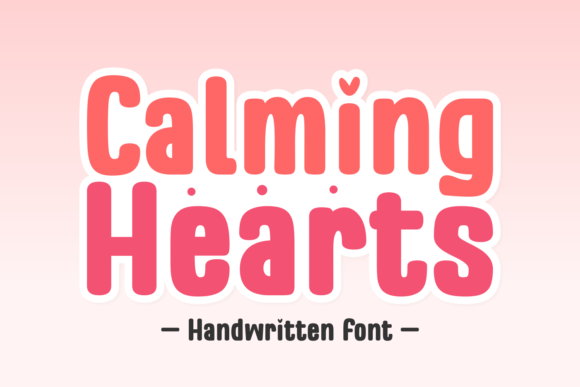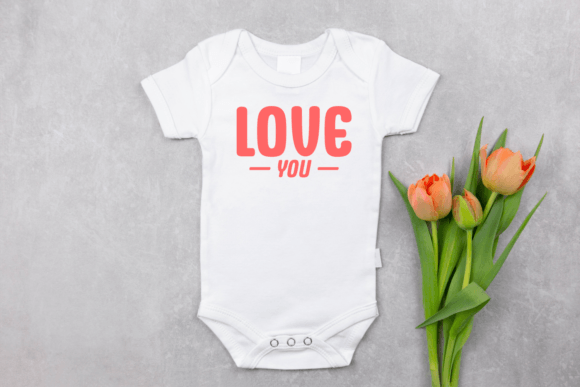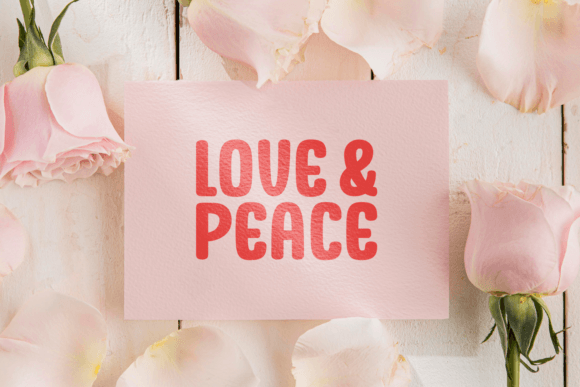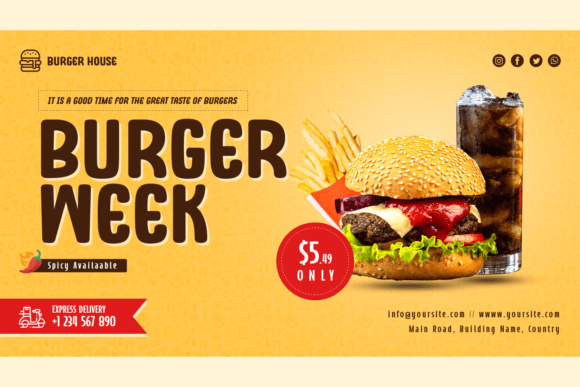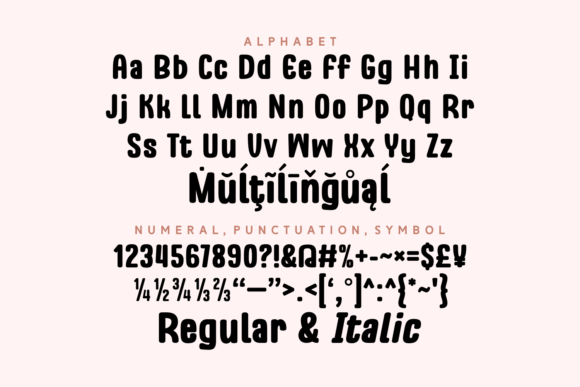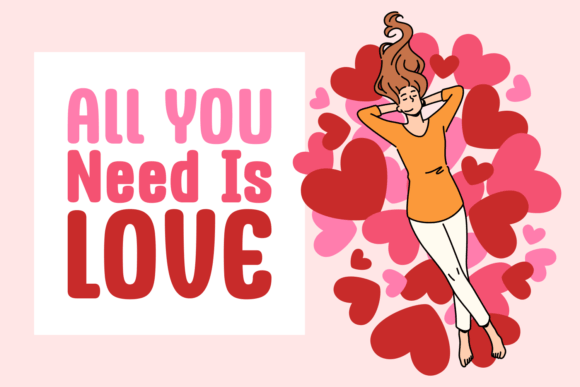
Calming Hearts Font
A Warm and Inviting Handwritten Font
The Calming Hearts Font is a warm and inviting handwritten typeface that brings a sense of friendliness to any design. Its bold, thick characters make it stand out, ensuring your text grabs attention. Whether you’re working on posters, banners, t-shirt designs, websites, apps, or quotes, the Calming Hearts Font adds a delightful touch of positivity and warmth to your designs.
Perfect for Posters and Banners
The Calming Hearts Font is ideal for posters and banners, where bold and eye-catching typography is key. Its thick characters and playful style make it perfect for making statements that convey joy and positivity. Whether you’re advertising an event, a product, or simply sharing a message, this font will help your text pop and make an impact.
Great for T-Shirt Designs and Merchandise
For t-shirt designs and merchandise, the Calming Hearts Font adds a unique, fun flair to your creations. Whether you’re designing custom graphics for a brand or a special collection, this font’s bold style ensures your text is loud and clear, conveying a positive, welcoming vibe.
Ideal for Websites and Apps
For websites and apps, the Calming Hearts Font adds a friendly and inviting touch to your digital designs. Its legible, bold characters ensure readability while also making your content visually appealing. Whether you’re designing headings, buttons, or landing pages, this font helps create an approachable, positive user experience.
Perfect for Invitations and Social Media Quotes
The Calming Hearts Font is ideal for invitations and social media quotes. Whether you’re designing wedding invitations, birthday cards, or motivational quotes, this font brings a warm, heartfelt touch to your messages. Its heart-shaped “I” glyph adds a charming, delightful detail to your typography, making it perfect for designs that aim to spread love and joy.
Elegant, Legible, and Versatile
Despite its bold design, the Calming Hearts Font remains legible and versatile. Its well-spaced strokes and clean lines ensure that your text is easy to read, even in smaller sizes or for longer passages. Whether you’re working on headlines, captions, or body text, this font provides the perfect balance of style and clarity, making it suitable for a wide range of creative applications.
Spread Love and Joy with Calming Hearts Font
If you’re looking for a bold, warm, and inviting handwritten font to enhance your designs, the Calming Hearts Font is the perfect choice. Whether you’re working on posters, t-shirt designs, wedding invitations, or social media content, this font adds a delightful, charming touch to your work. Let the Calming Hearts Font spread love, positivity, and joy through your creative projects.